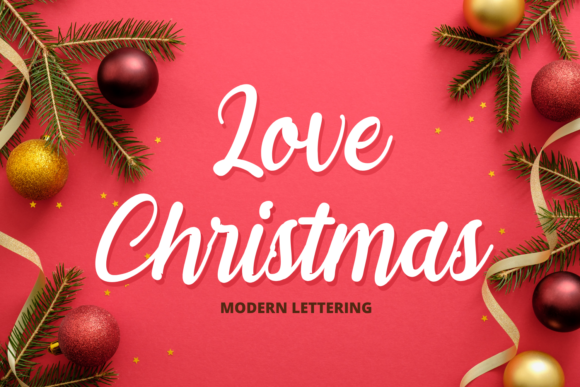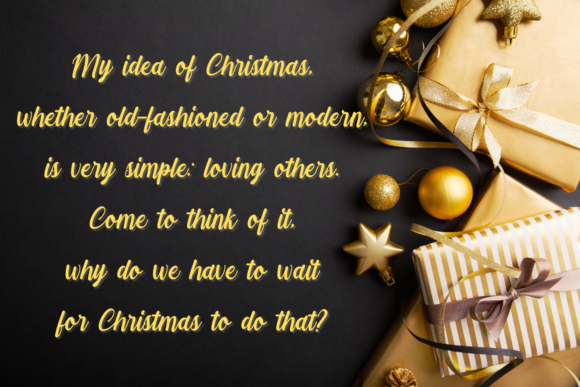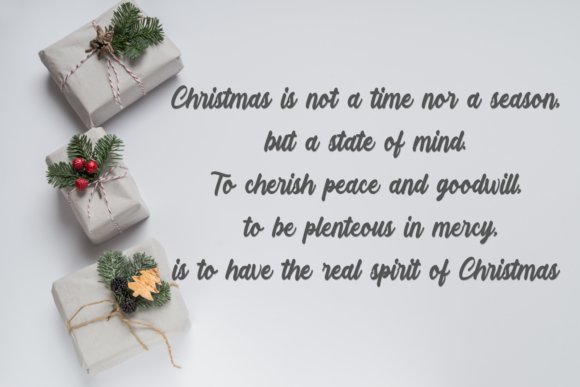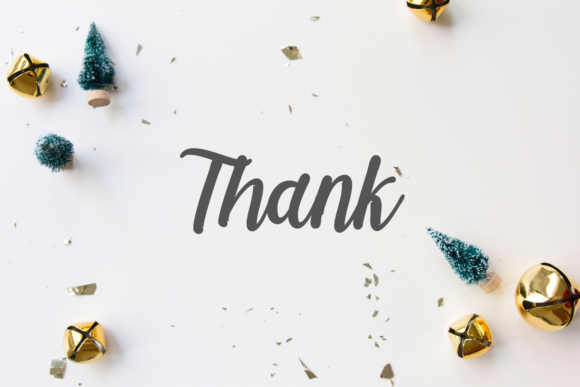
About Love Christmas Font
Love Christmas is a bold and casual handwritten font. Fall in love with its incredibly versatile style and use it to create spectacular designs!